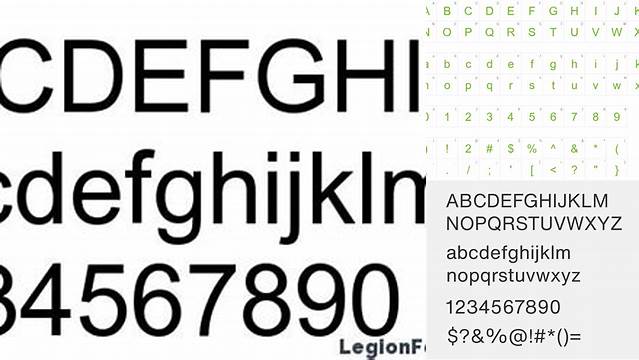
Are you looking to enhance the visual appeal of your Android device? Do you need a reliable and versatile font that works seamlessly across various applications? If so, obtaining an Arial Normal font free download for Android might be just what you need. Arial is a widely recognized and respected typeface, known for its clean lines and exceptional readability. In this comprehensive guide, we will explore everything you need to know about downloading and installing the Arial Normal font on your Android device, ensuring you can enjoy a professional and polished look for all your textual content.
Why Choose Arial Normal Font?
The Arial Normal font is a staple in the world of typography for several compelling reasons. Its simple yet elegant design makes it incredibly versatile, suitable for a wide range of applications from document creation to web design and mobile interfaces. One of the primary advantages of Arial is its exceptional readability. The clear and well-defined letterforms ensure that text remains legible even at smaller sizes, making it perfect for mobile devices where screen real estate is often limited. Furthermore, Arial is a system font on many platforms, which means it's widely supported and renders consistently across different devices and operating systems. This consistency is crucial for ensuring that your content looks the same no matter where it's viewed.
Another key benefit of using Arial is its neutrality. Unlike more stylized fonts that can convey specific emotions or branding, Arial is relatively neutral, allowing the content to take center stage. This makes it an excellent choice for professional documents, reports, and any situation where clarity and objectivity are paramount. Its clean and unassuming appearance ensures that the focus remains on the information being presented, rather than the font itself. Arial’s widespread availability also means that it is often pre-installed on many devices, reducing the need for additional downloads or installations. However, if you need to ensure you have the correct version or want to use it in specific apps, downloading it can be a useful step. For Android users, having the Arial Normal font readily available can significantly enhance the overall user experience by providing a familiar and easy-to-read typeface across various applications and documents.